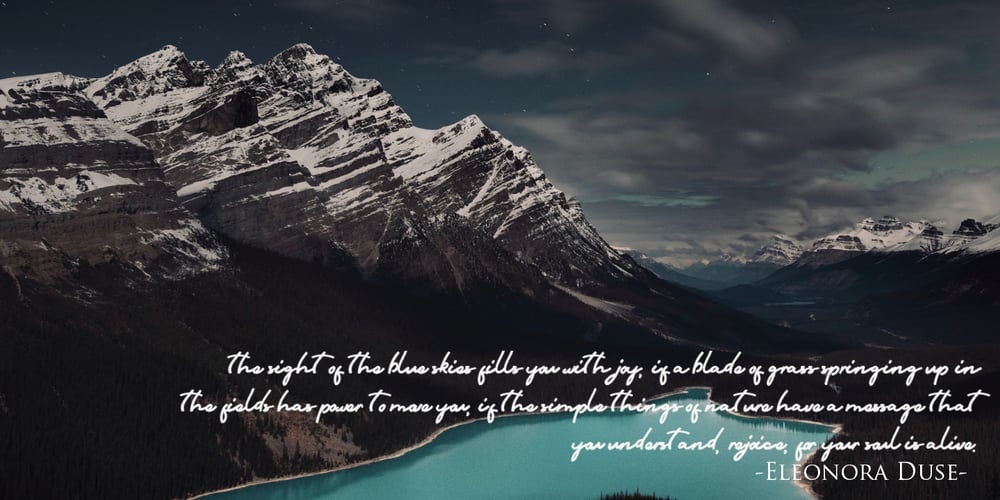
Sri Kandi Font Family was designed by Asep Rendi and published by Arendxstudio. Sri Kandi contains 1 styles and family package options. Sri Kandi is a stylish and effortlessly cool handwritten font with a contemporary twist. It will add a unique spin on any design project! You will find font in OTF formats. No special software is required to use Sri Kandi, just install it as you normally do on your system. Includes: – Uppercase – Lowercase – Numerals – Punctuation – Symbols – Ligatures – Alternates – Multi-language Characters